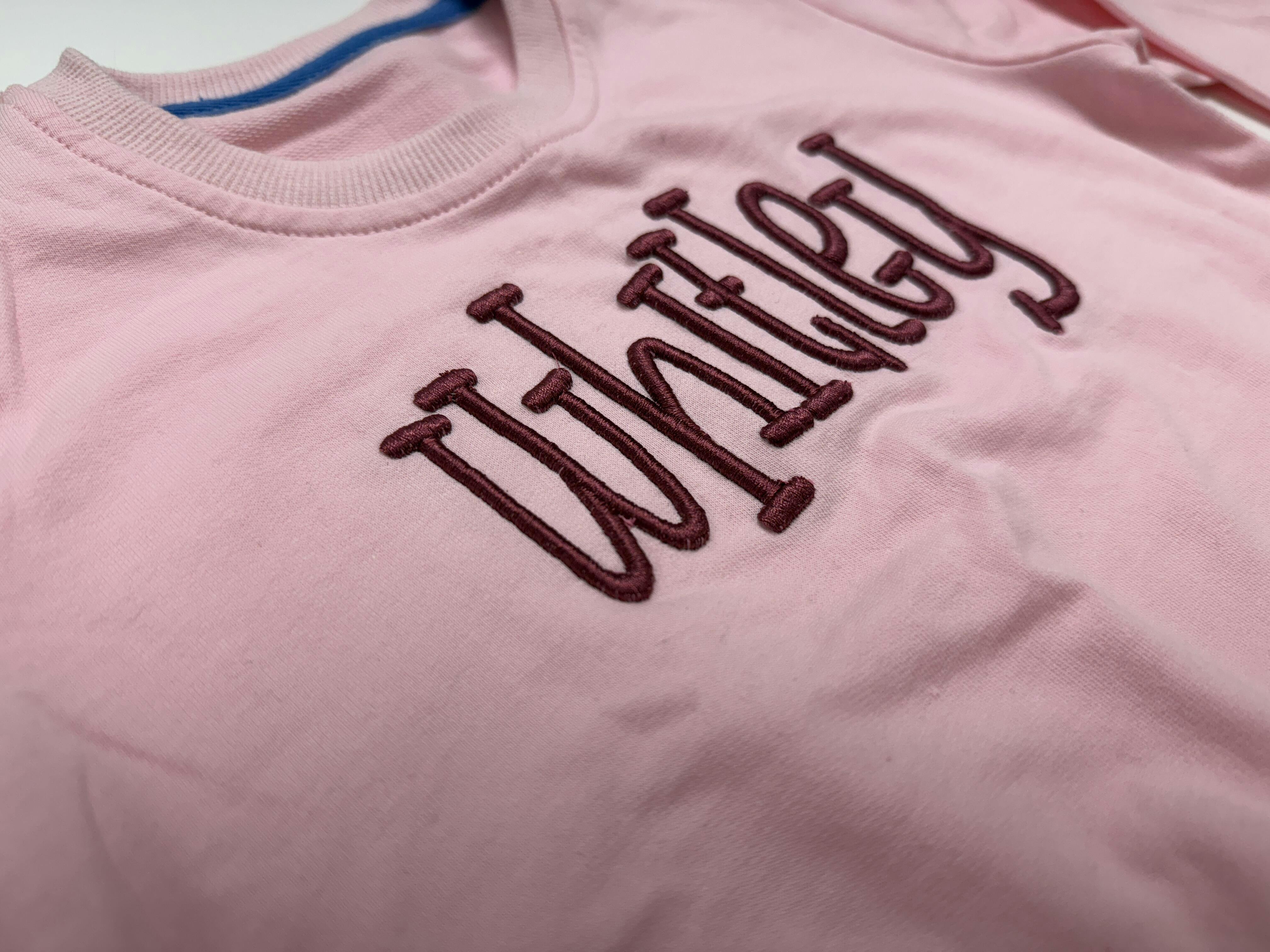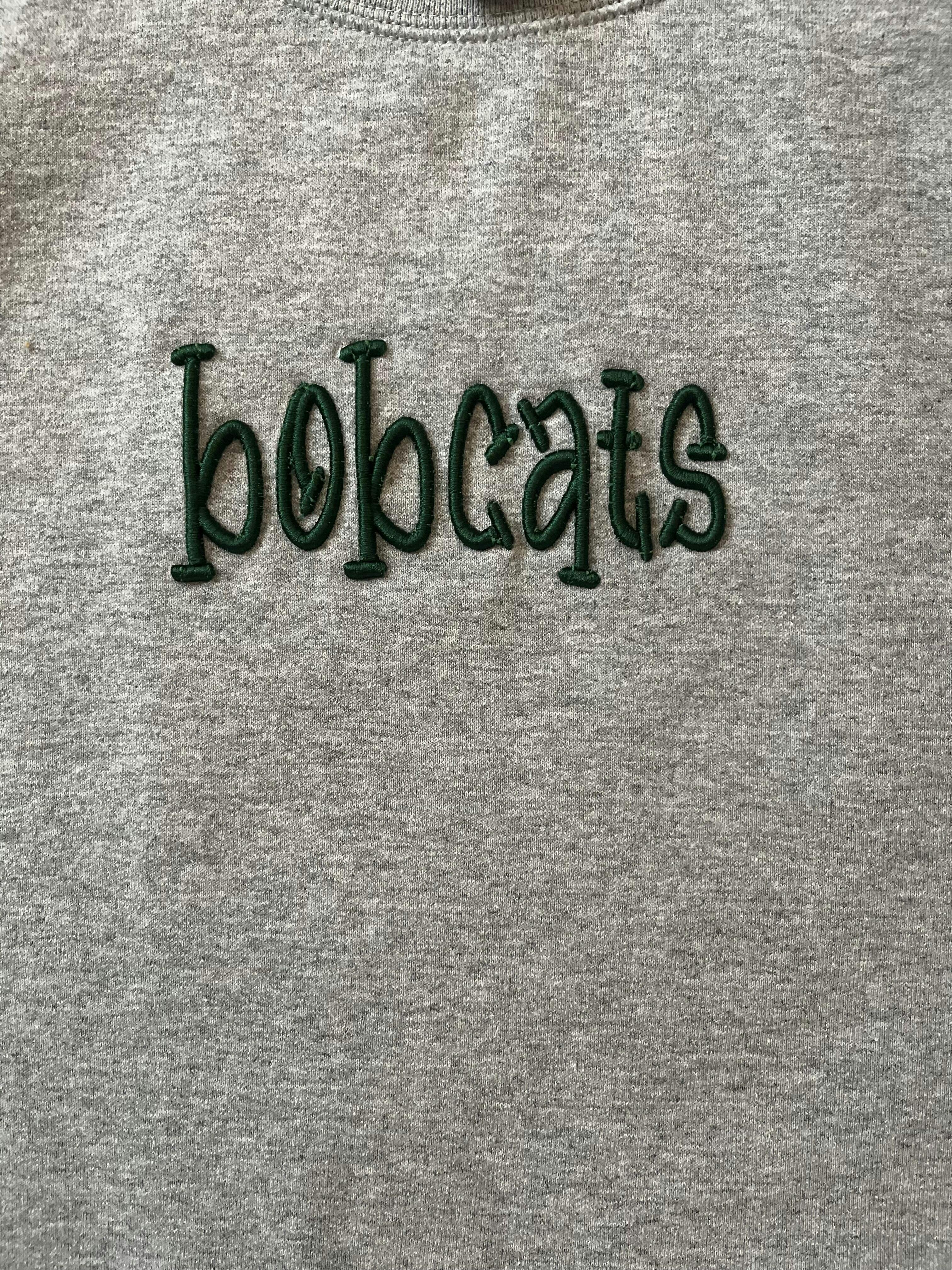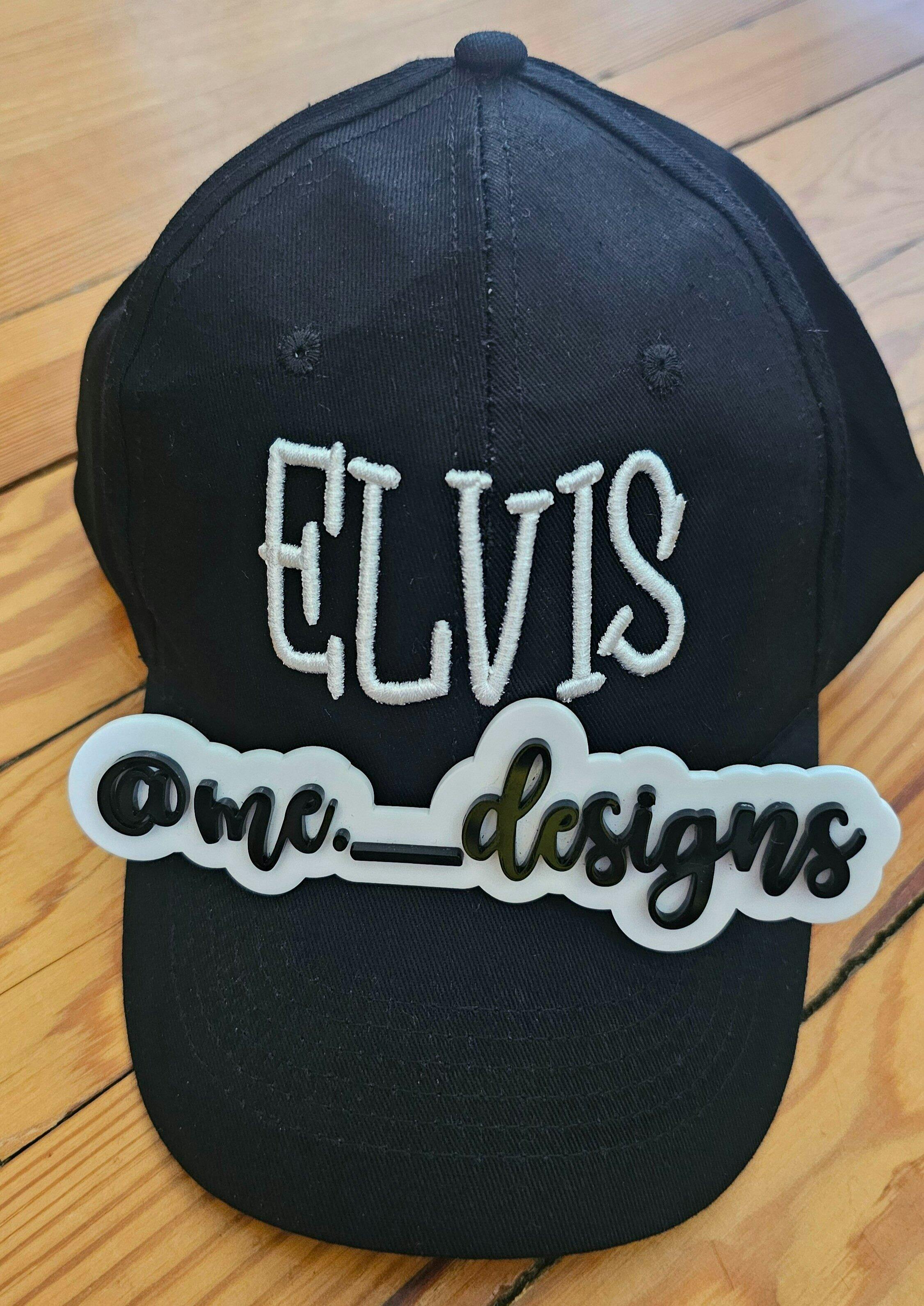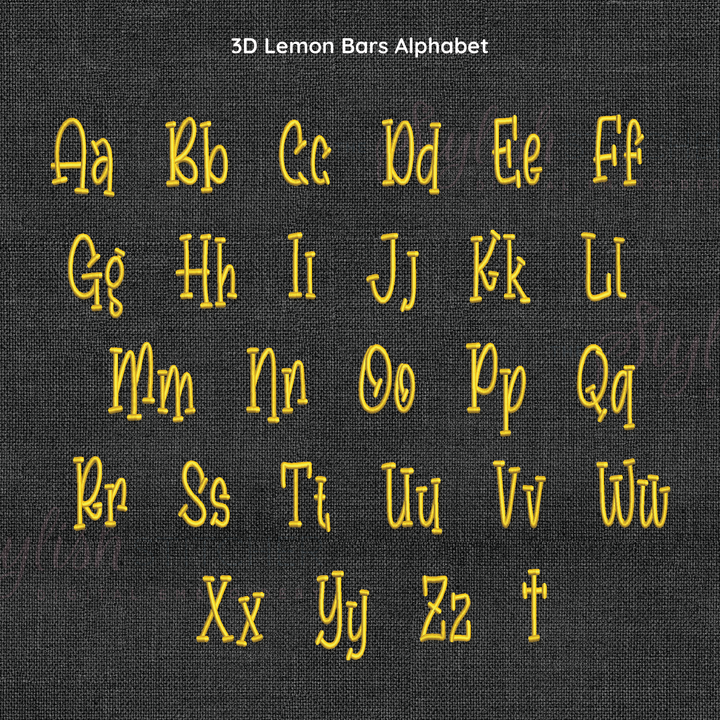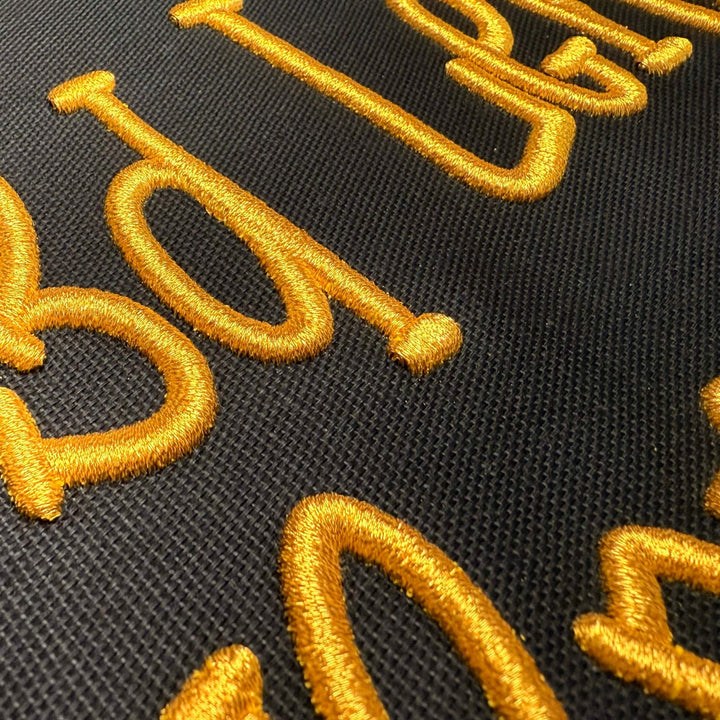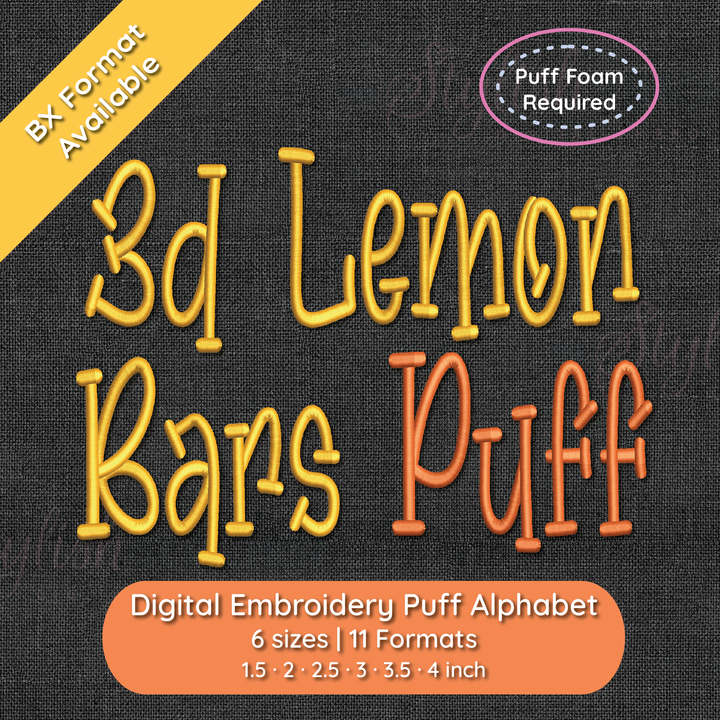
Photograph of stitched out 3D Lemon Bars Puff embroidery font
Photograph of stitched out 3D Lemon Bars Puff embroidery font alphabet
Close up photograph of stitched out 3D Lemon Bars Puff embroidery font
Lemon Bars 3D Puff Digital Embroidery Font
Introducing Lemon Bars, the 3D puff embroidery font that adds a zest of playful charm to any project! With its bold puff effect and quirky serif style, Lemon Bars is sure to elevate your designs and make them pop with personality. Perfect for bringing a splash of cheerful dimension to apparel, accessories, and more, it’s the sweet twist your projects have been craving. Make your stitches stand out—add a little puff and a lot of fun!
Stitch Type: Satin Stitch for 3D Puff